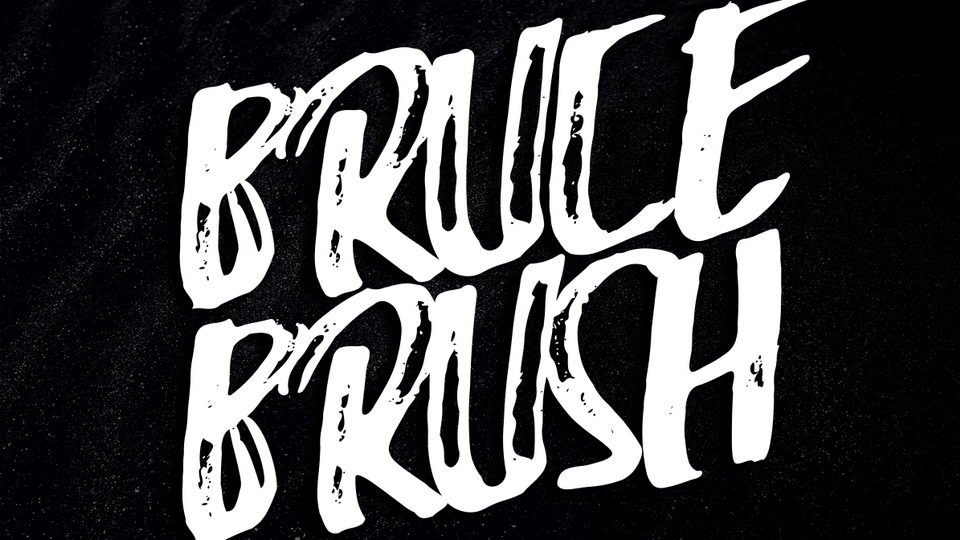
Download Bruce Brush font, a bold textured hand crafted brush typeface. Bruce Brush font is suitable for headlines, posters, t-shirt prints, eye-catching messages and other creative messages.
Designer: Deedeetype